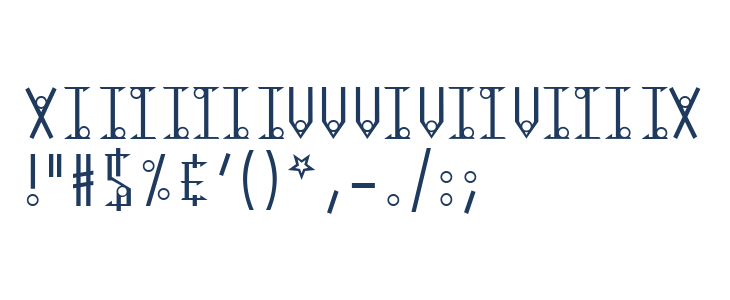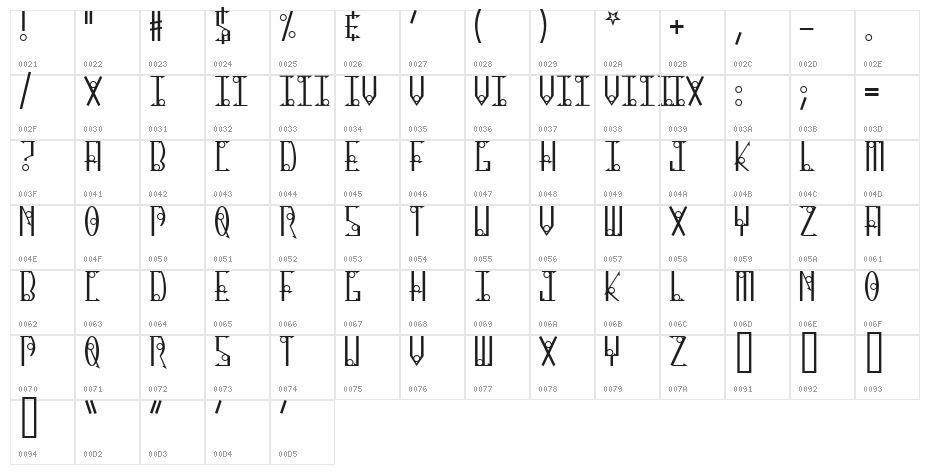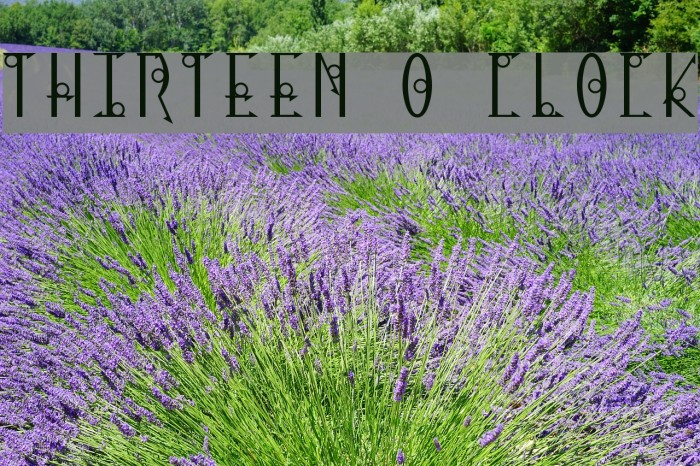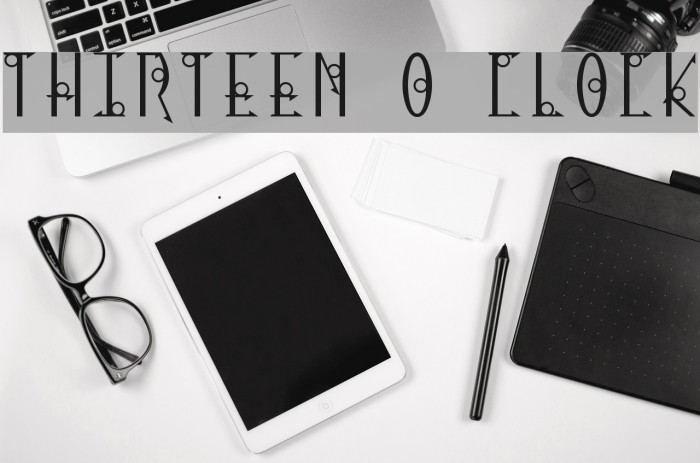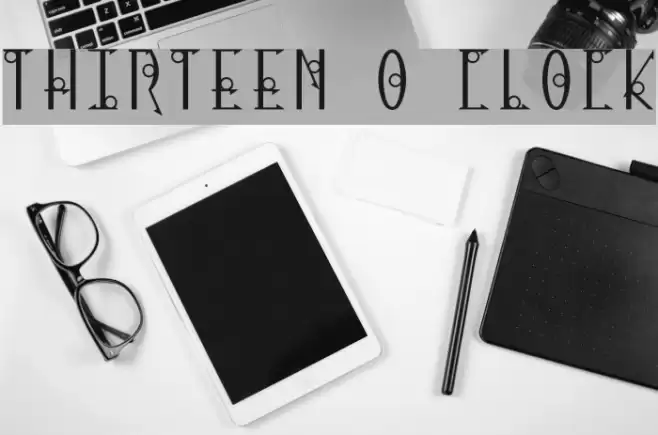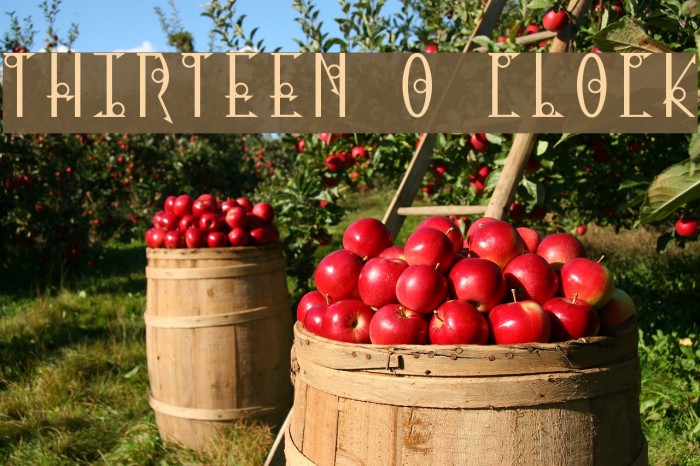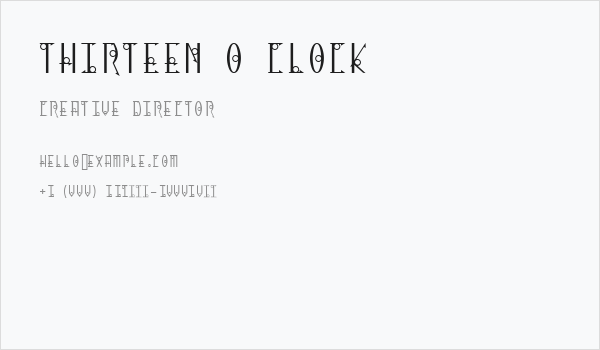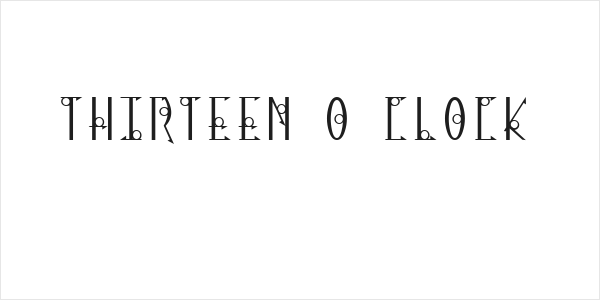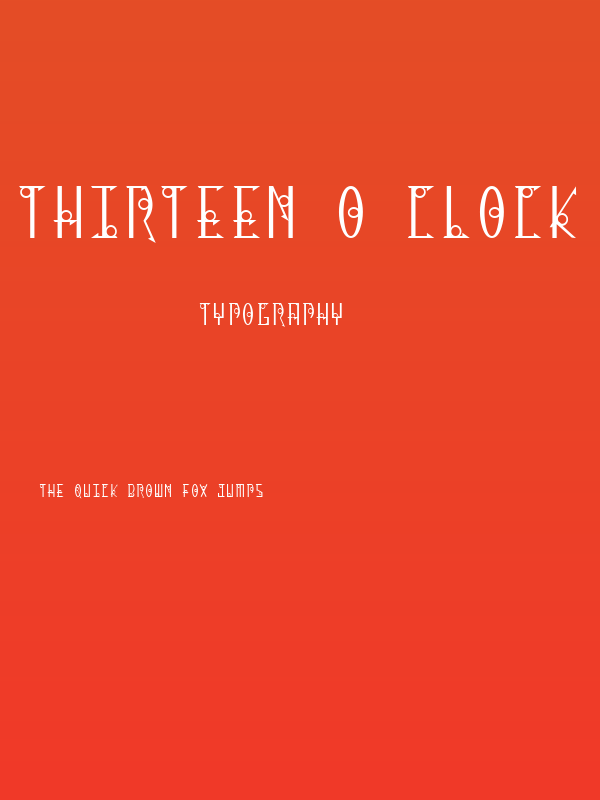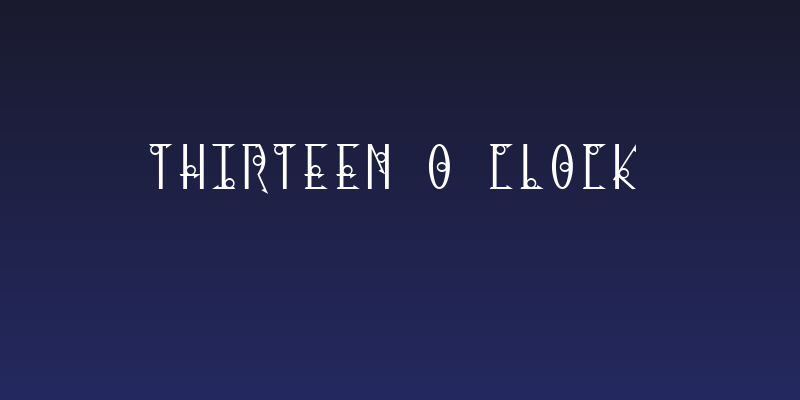
Thirteen O Clock Font
Thirteen O Clock Description
This font features a unique and decorative style, characterized by its geometric shapes and intricate details. Each letter is designed with a combination of sharp angles and circular elements, creating a striking visual contrast. The uppercase and lowercase letters maintain a consistent design theme, with the uppercase letters being more pronounced. The numbers and special characters follow the same aesthetic, ensuring a cohesive look across all characters. This font's distinct appearance makes it suitable for creative and artistic projects where a bold statement is desired.
| Proposed Projects | Ideal for posters, album covers, branding, and any project requiring a bold, artistic touch. |